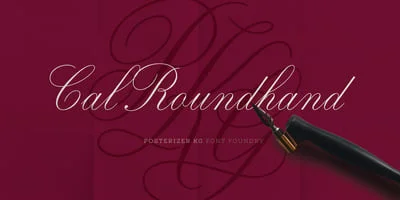
Cal Roundhand Font
Cal Roundhand Font is perfect for elegant calligraphy workshops, premium wedding invitations, handwritten letter services, artisanal stationery designs, personal branding consultants, and sophisticated script projects. Its graceful character makes it ideal for calligraphy artists, wedding planners, luxury stationery boutiques, handwriting coaches, and any application requiring flowing typography that conveys handwritten elegance, personal intimacy, and the timeless artistry of traditional penmanship and calligraphic excellence.
Cal Roundhand Font is exciting because it preserves the refined elegance and flowing grace of traditional roundhand calligraphy through masterfully crafted letterforms that capture the smooth rhythm and practiced precision of skilled penmanship. Its rounded proportions and calligraphic details reflect centuries of handwriting tradition and the personal touch that only hand-lettered communication can provide, making it perfect for brands seeking to convey authentic craftsmanship and personal connection. The font's calligraphic character transforms digital text into expressions of handwritten artistry.
Cal Roundhand Font family includes calligraphically-inspired weight variations typically featuring Light, Regular, and Medium options with flowing script styles that maintain traditional roundhand authenticity. The family often incorporates calligraphic flourishes, penmanship ornaments, and handwriting elements designed for elegant script applications, providing designers with comprehensive tools for creating authentic, calligraphy-focused typographic compositions.
When selecting traditional calligraphy typography solutions, Cal Roundhand Font represents an exceptional choice for elegant handwriting projects. This graceful typeface brings instant calligraphic authenticity to any design, making it invaluable for wedding professionals, stationery designers, and calligraphy instructors celebrating traditional penmanship. Whether you're developing luxury wedding invitation collections, creating calligraphy workshop materials, or designing personal branding campaigns, Cal Roundhand Font provides the flowing elegance and calligraphic authenticity essential for honoring traditional handwriting artistry in today's digital-dominated communication landscape.